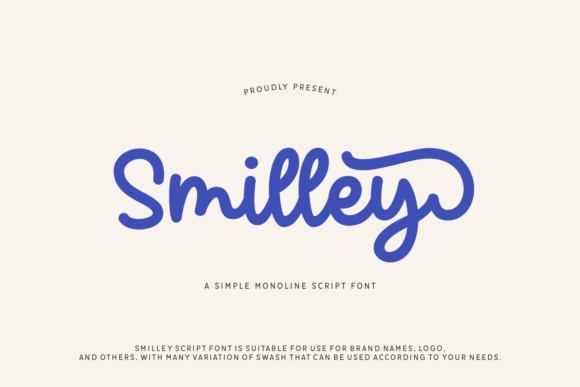
Smilley Font: The Ultimate Choice for a Friendly and Approachable Look
Are you looking for a font that can add a touch of friendliness and approachability to your brand? Look no further than Smilley Font. This cheerful and simple monoline script font is perfect for a wide range of design projects, from branding and logos to product packaging and social media graphics. In this article, we’ll take a closer look at Smilley Font and explore its features, benefits, and uses.
What is Smilley Font?
Smilley Font is a modern monoline script font that is designed to be both playful and professional. Its smooth and clean design makes it perfect for a wide range of design projects, from elegant logos to fun and playful social media graphics. The font features a unique and distinctive style that is sure to grab attention and leave a lasting impression.
- Monoline script font: Smilley Font is a monoline script font, which means that it features smooth and connected lines that give it a fluid and elegant look.
- Cheerful and simple design: The font has a cheerful and simple design that makes it perfect for projects that need a friendly and approachable look.
- Modern touch: Smilley Font has a modern touch that makes it perfect for contemporary design projects.
Benefits of Using Smilley Font
There are many benefits to using Smilley Font in your design projects. Here are just a few:
- Perfect for branding and logos: Smilley Font is perfect for creating elegant and professional logos that will help to establish your brand identity.
- Great for product packaging: The font’s smooth and clean design makes it perfect for product packaging, where it can help to create a premium and high-end look.
- Ideal for social media graphics: Smilley Font is also great for social media graphics, where it can help to add a touch of friendliness and approachability to your posts and updates.
- Playful yet professional style: The font’s playful yet professional style makes it perfect for projects that need a friendly and approachable look.
Uses of Smilley Font
Smilley Font is a versatile font that can be used in a wide range of design projects. Here are just a few examples:
- Branding and logos: Smilley Font is perfect for creating elegant and professional logos that will help to establish your brand identity.
- Product packaging: The font’s smooth and clean design makes it perfect for product packaging, where it can help to create a premium and high-end look.
- Social media graphics: Smilley Font is also great for social media graphics, where it can help to add a touch of friendliness and approachability to your posts and updates.
- Advertising and marketing materials: The font’s playful yet professional style makes it perfect for advertising and marketing materials, such as brochures, flyers, and posters.
- Website design: Smilley Font can also be used in website design, where it can help to create a friendly and approachable look.
Tips and Tricks for Using Smilley Font
Here are a few tips and tricks for using Smilley Font in your design projects:
- Use it with a contrasting background: Smilley Font looks best when used with a contrasting background that will help it to stand out.
- Experiment with different colors: The font’s smooth and clean design makes it perfect for use with a wide range of colors.
- Use it in combination with other fonts: Smilley Font can be used in combination with other fonts to create a unique and interesting look.
- Pay attention to font size: Make sure to use Smilley Font at a large enough font size to ensure that it is legible.
In conclusion, Smilley Font is a versatile and modern monoline script font that is perfect for a wide range of design projects. Its smooth and clean design makes it perfect for branding, logos, product packaging, social media graphics, and more. With its playful yet professional style, Smilley Font is an ideal choice for projects that need a friendly and approachable look.